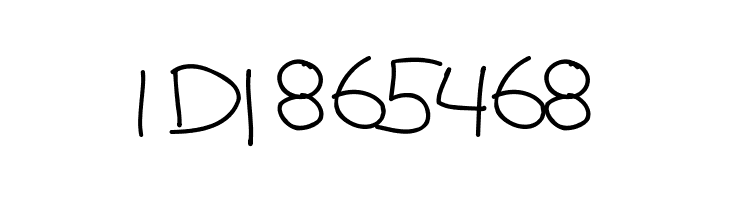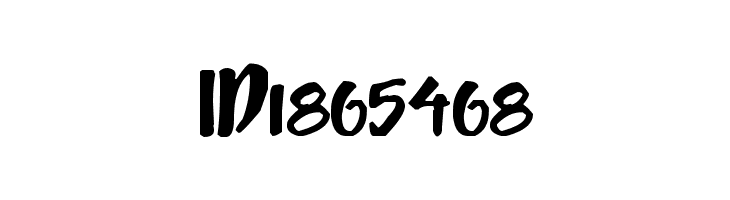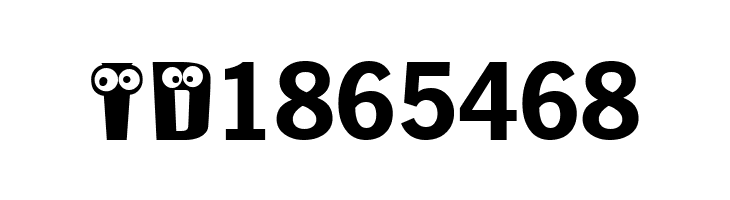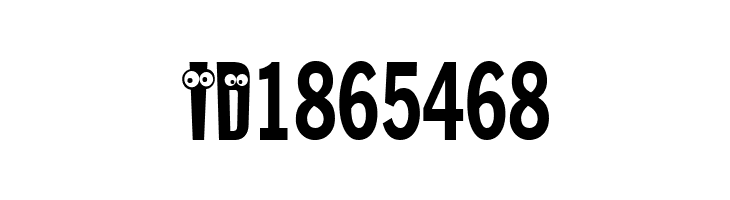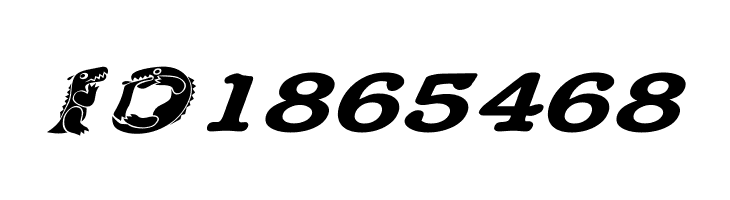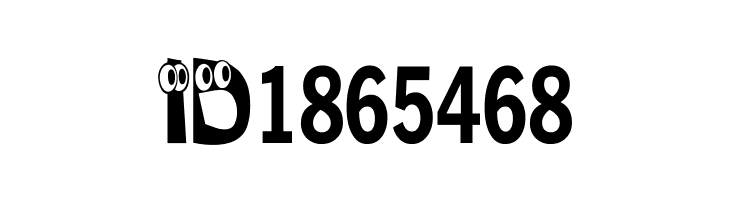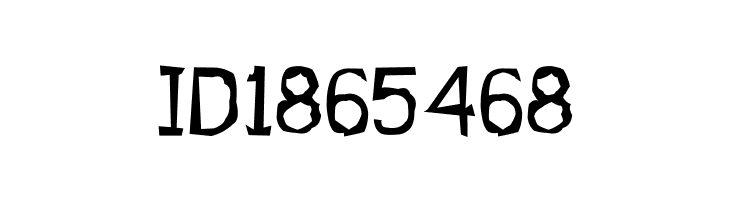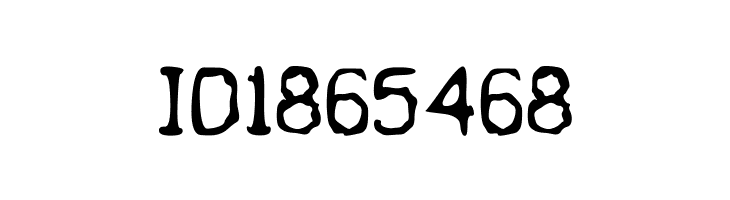
A playful, hand-drawn font with irregular, whimsical letterforms.
A playful, hand-drawn font with wavy, organic strokes and a whimsical feel.
A bold, expressive handwritten font with dynamic strokes.
A bold, playful font with eye-adorned uppercase letters and solid lowercase characters.
A bold, playful font with quirky eye motifs in uppercase letters.
A bold, decorative font with ornate uppercase and traditional serif lowercase.
A playful font with animated uppercase letters and bold, clean lowercase characters.